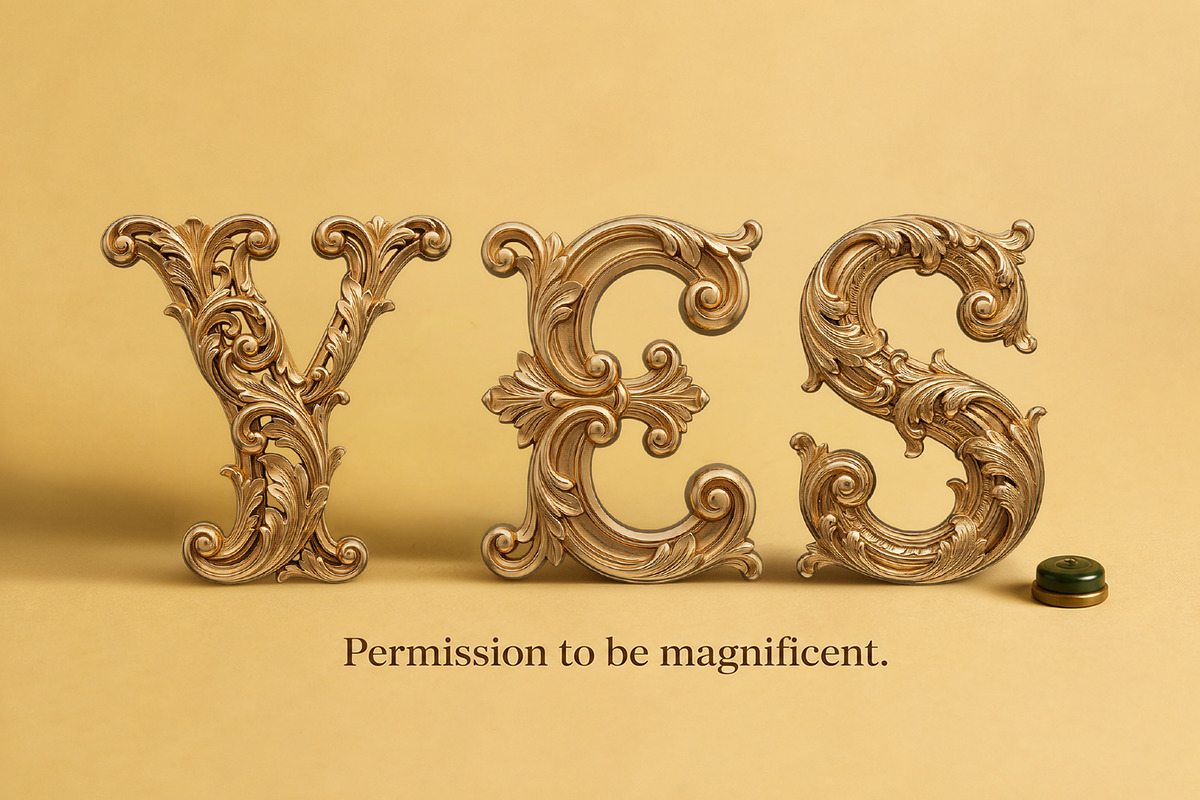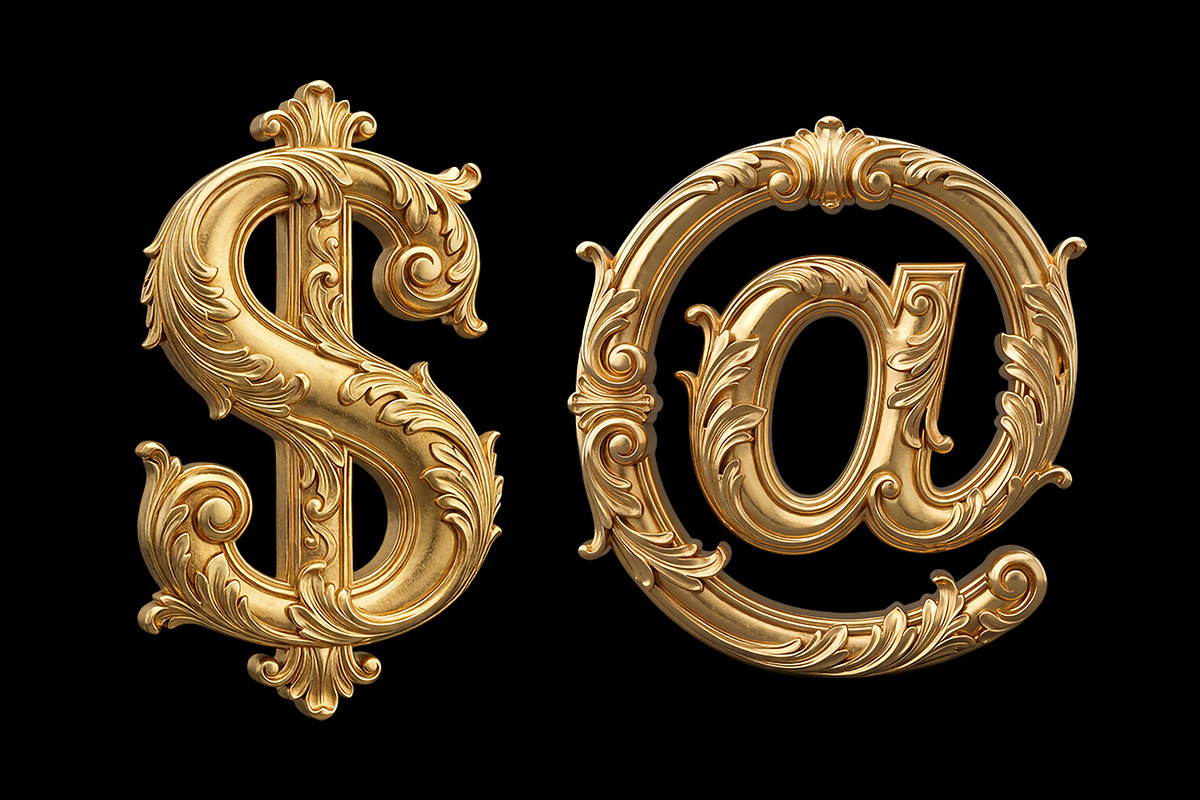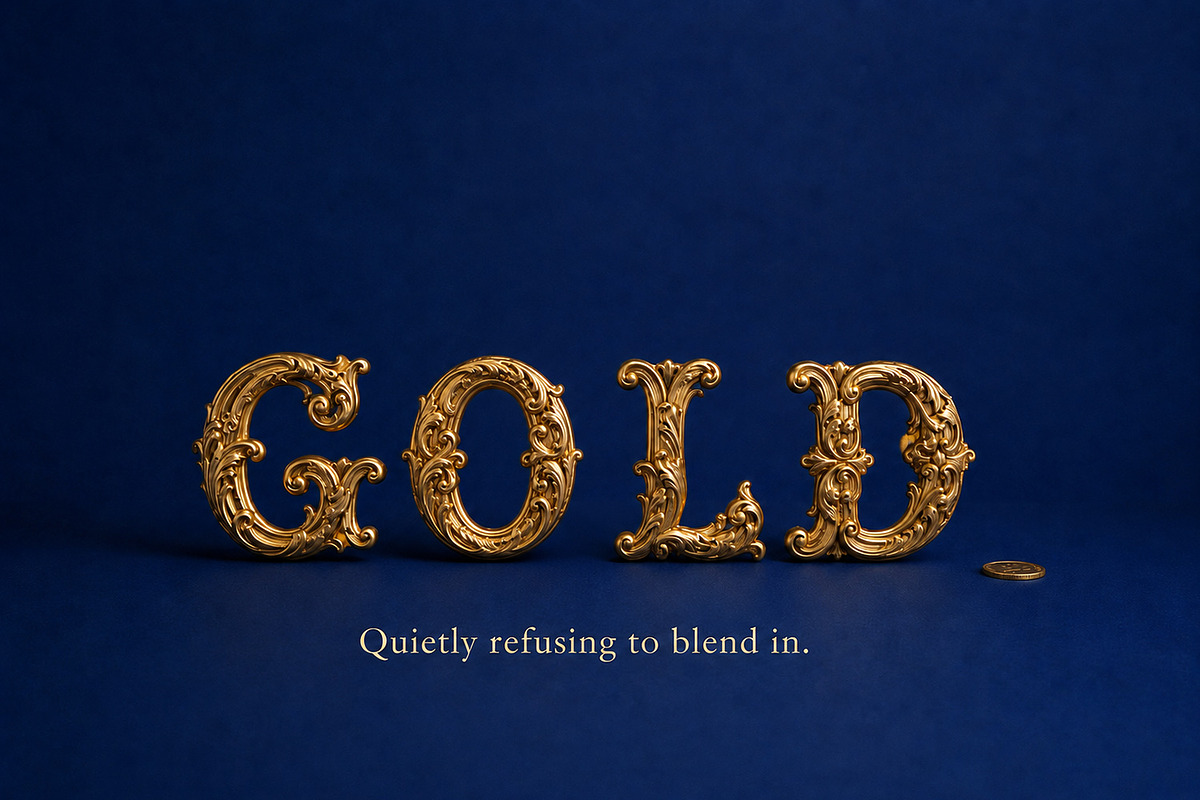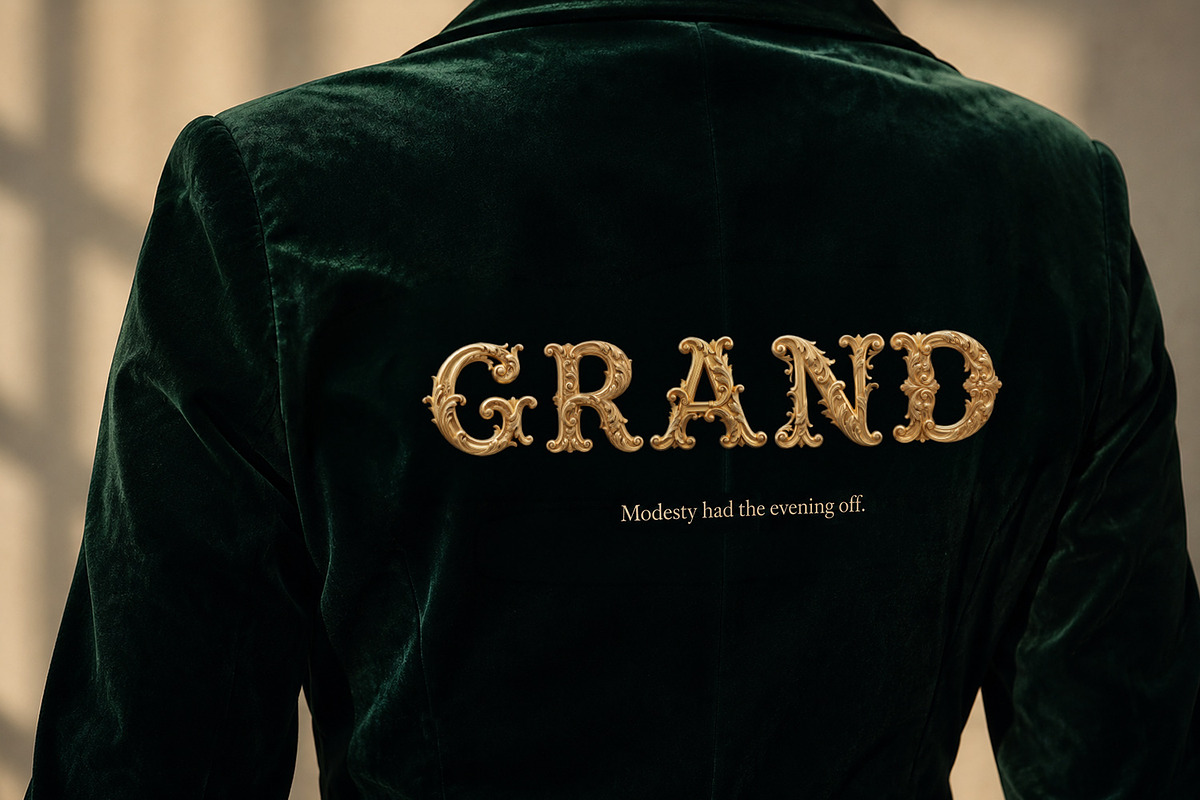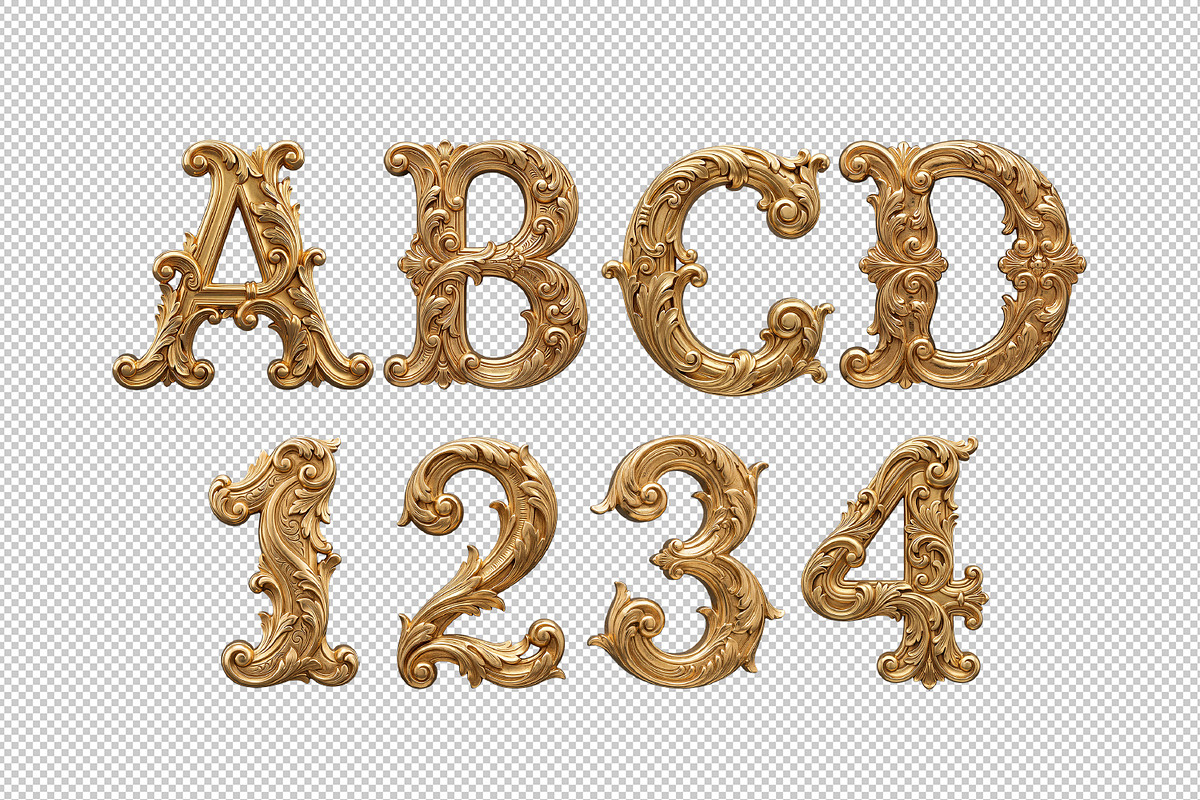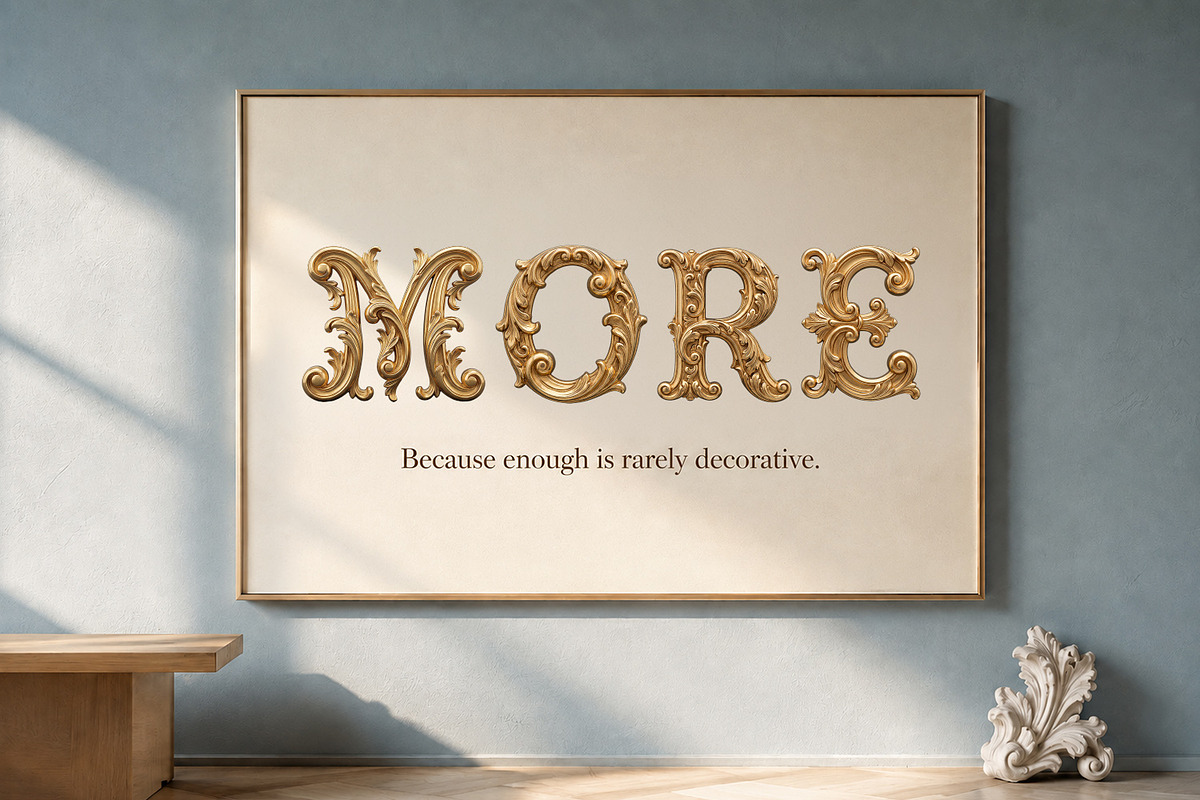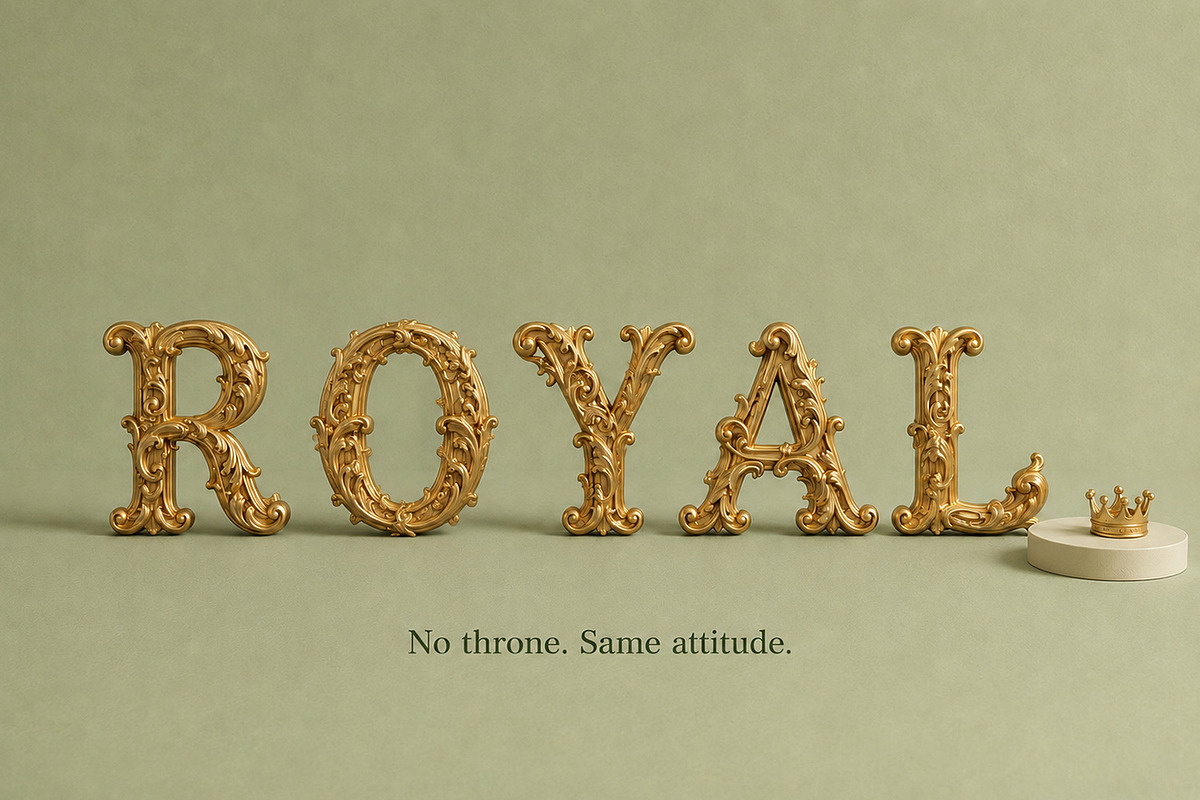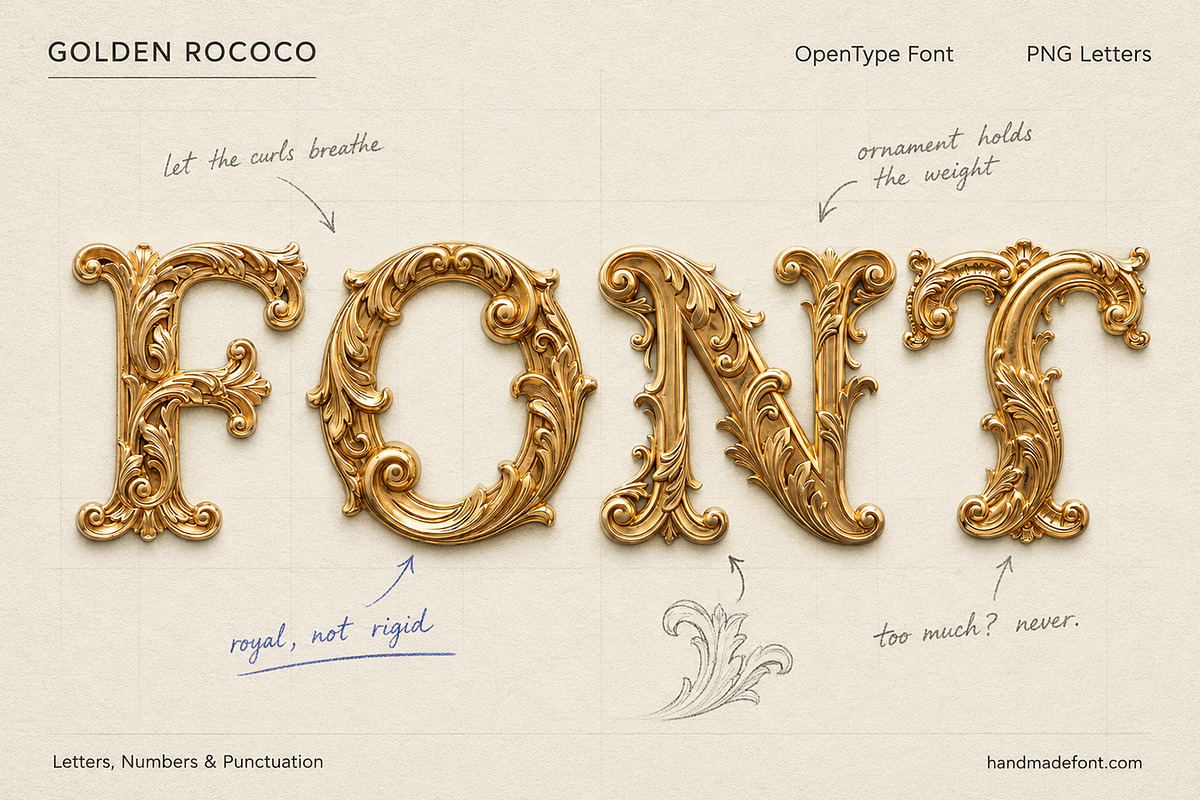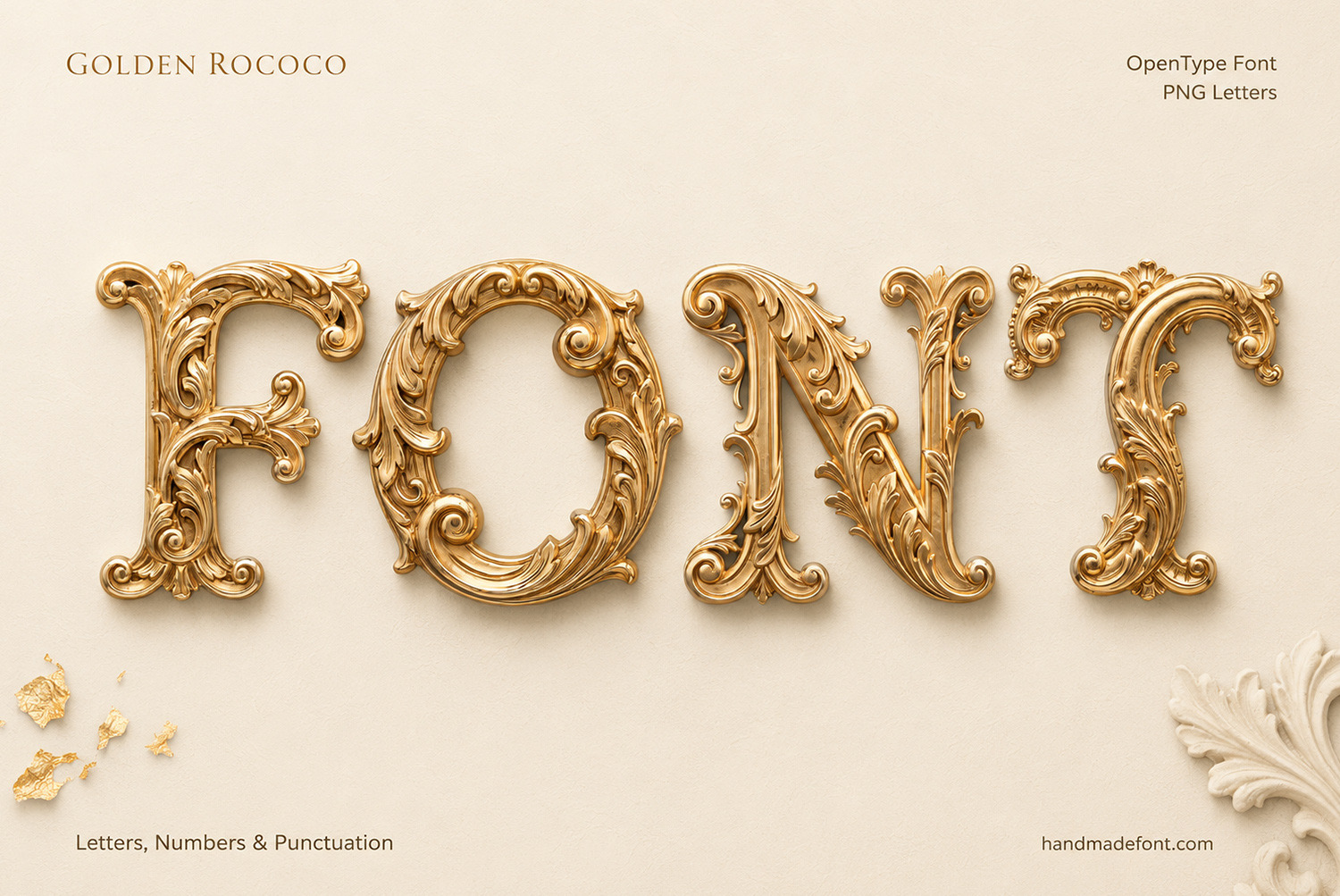
Golden Rococo Font
Golden Rococo Font brings the opulence of eighteenth-century ornament into contemporary design projects. Each character is shaped like a gilded architectural detail, filled with flowing acanthus leaves, curls, carved flourishes, and luminous metallic depth. Its lavish decorative style is ideal for luxury branding, wedding stationery, beauty packaging, fashion editorials, invitations, event posters, and theatrical titles. The set includes a versatile OTF font plus individual PNG letters on transparent backgrounds, allowing you to compose bespoke layouts with complete creative freedom. Use Golden Rococo Font whenever a design deserves a royal, collectible, and unmistakably ornate statement with a touch of timeless grandeur.
Letters : A B C D E F G H I J K L M N O P Q R S T U V W X Y Z
Numbers : 0 1 2 3 4 5 6 7 8 9
Others : ! ? - . ' $ € % & #